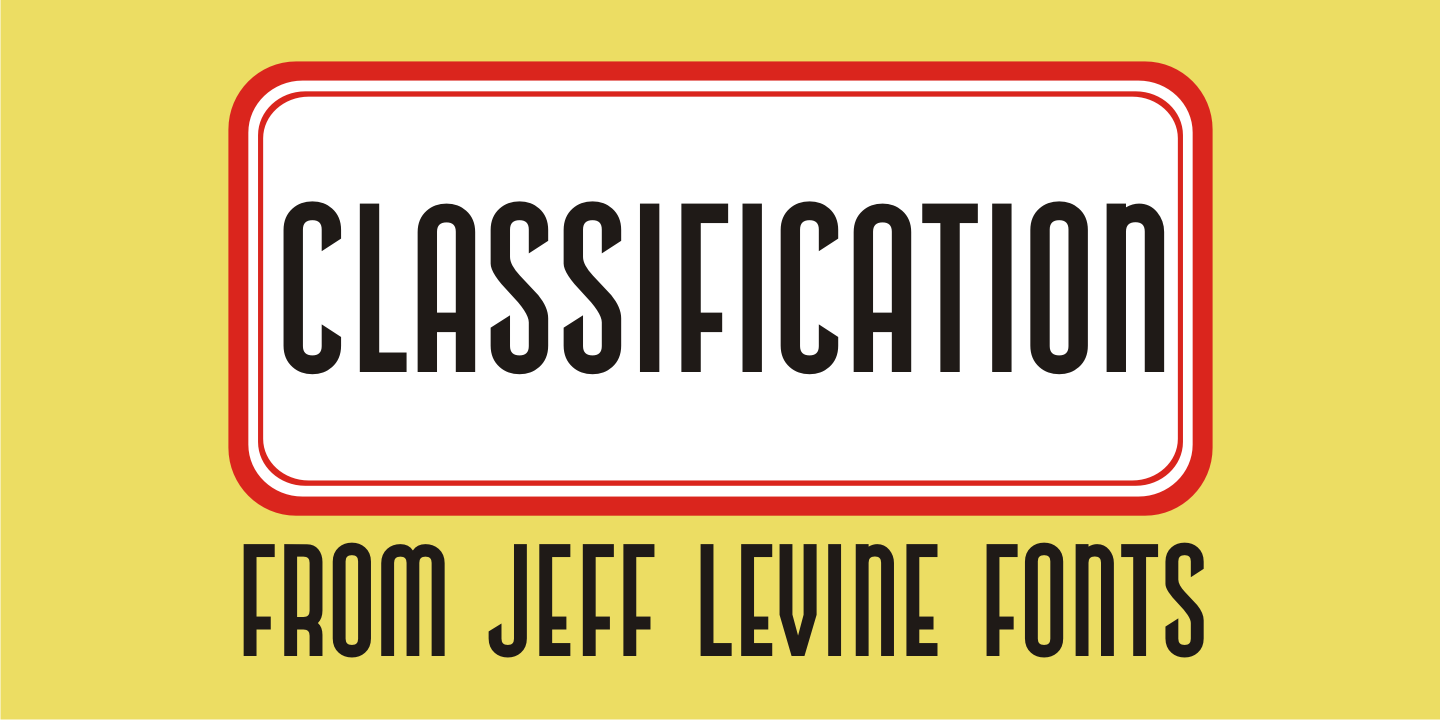
Classification JNL Font is perfect for government document designs, official classification materials, military-inspired graphics, intelligence agency themes, security clearance documents, confidential filing systems, administrative office signage, bureaucratic form layouts, official stamp designs, and any authoritative project that demands the systematic precision and institutional authority of official classification and governmental documentation systems.
What makes Classification JNL Font exciting is its bureaucratic precision that captures the methodical organization of official documentation and the systematic authority of institutional classification systems. This typeface embodies the essence of governmental efficiency with structured letterforms that suggest filing cabinets, official stamps, and the meticulous attention to detail that defines professional administrative systems. The font's institutional character makes it perfect for brands and projects that want to communicate authority, organization, and the reliable systematic approach that characterizes effective governmental and administrative operations.
The Classification JNL Font family includes multiple weights and official variations, featuring light, regular, and bold versions along with stencil-style alternates and systematic elements that enhance the font's administrative appeal. This comprehensive collection allows designers to create authentically official typography that maintains the font's signature institutional character while providing flexibility for various governmental and administrative design applications.
When exploring authentic governmental typography, Classification JNL Font Free Download represents an exceptional opportunity to work with a typeface that genuinely captures the spirit of official documentation and systematic organization. This font demonstrates innovative design thinking by incorporating the methodical precision and institutional reliability that define both historical government documentation and the contemporary need for clear, systematic communication in official contexts.
Professional designers appreciate Classification JNL Font for its ability to instantly establish official credibility and systematic authority across various governmental and administrative platforms. The font's institutional character makes it particularly effective for government agencies, administrative services, and organizational systems seeking to communicate reliability and the professional standards that define effective bureaucratic operations.
The enduring appeal of Classification JNL Font lies in its perfect representation of systematic organization and official authority that continues to be essential for effective governmental and administrative communication. This typeface serves as a powerful tool for creating clear, authoritative documentation that meets the highest standards of institutional communication and official presentation.
For creative professionals working with governmental and administrative brands, Classification JNL Font represents the ultimate typography solution that brings authentic institutional authority and systematic precision to any application, ensuring designs reflect the reliable organization and official credibility that define the most effective governmental documentation and administrative communication systems.